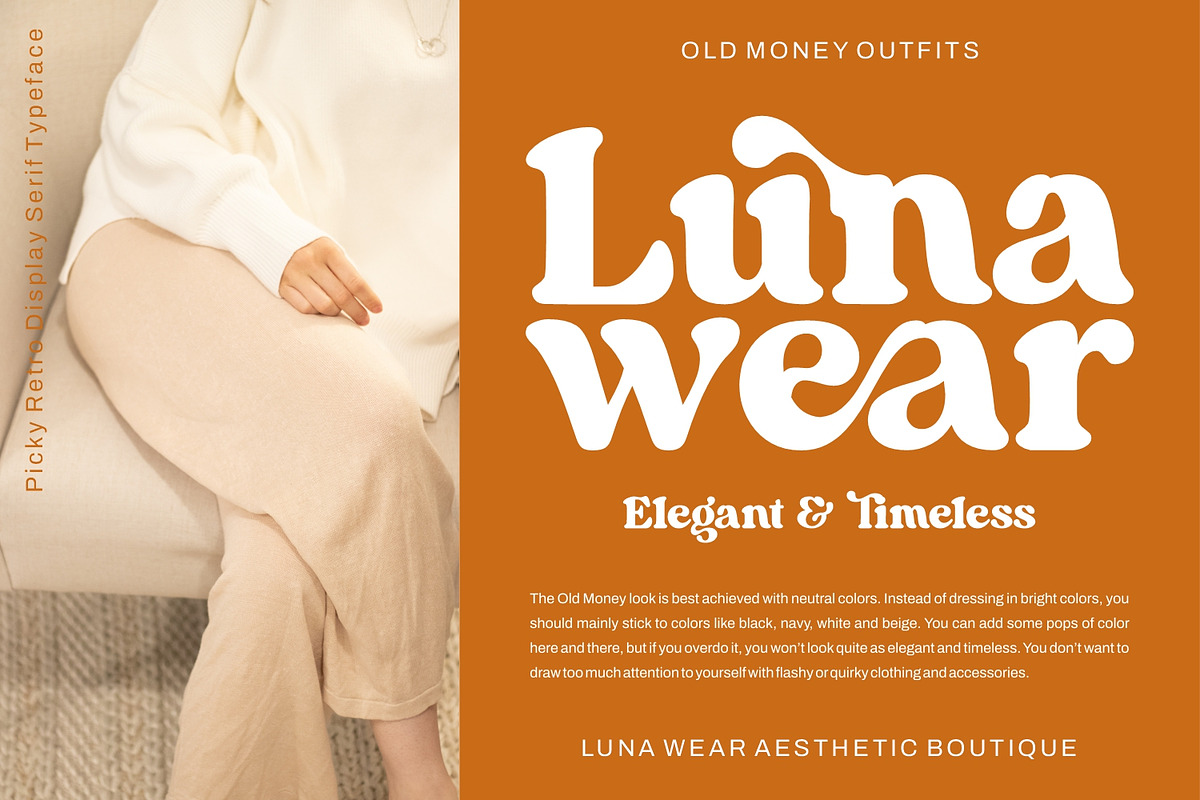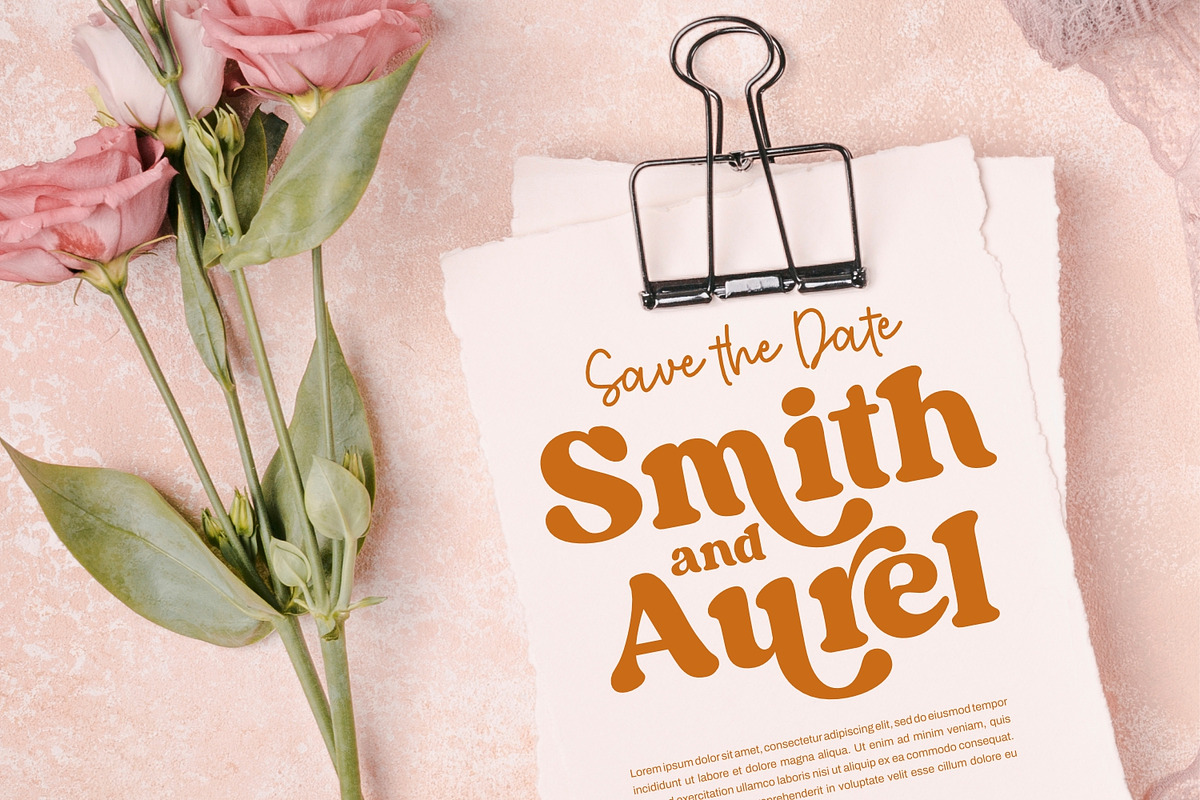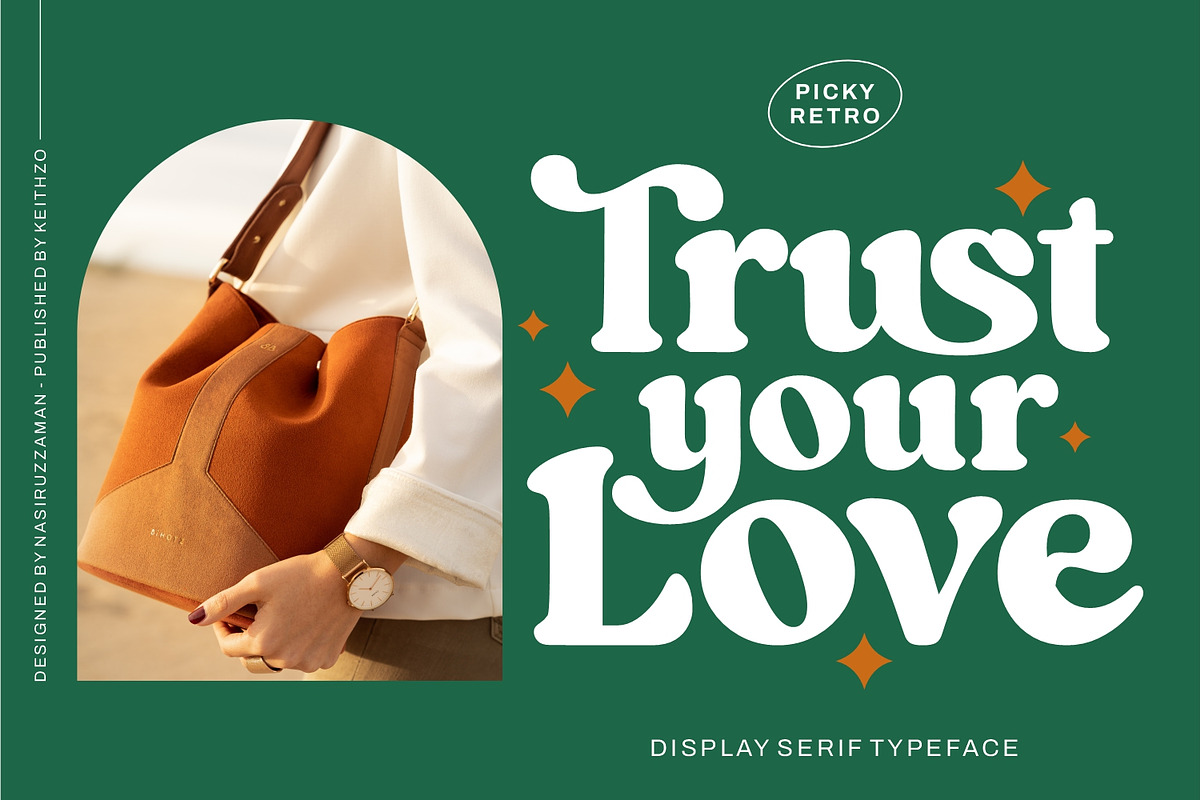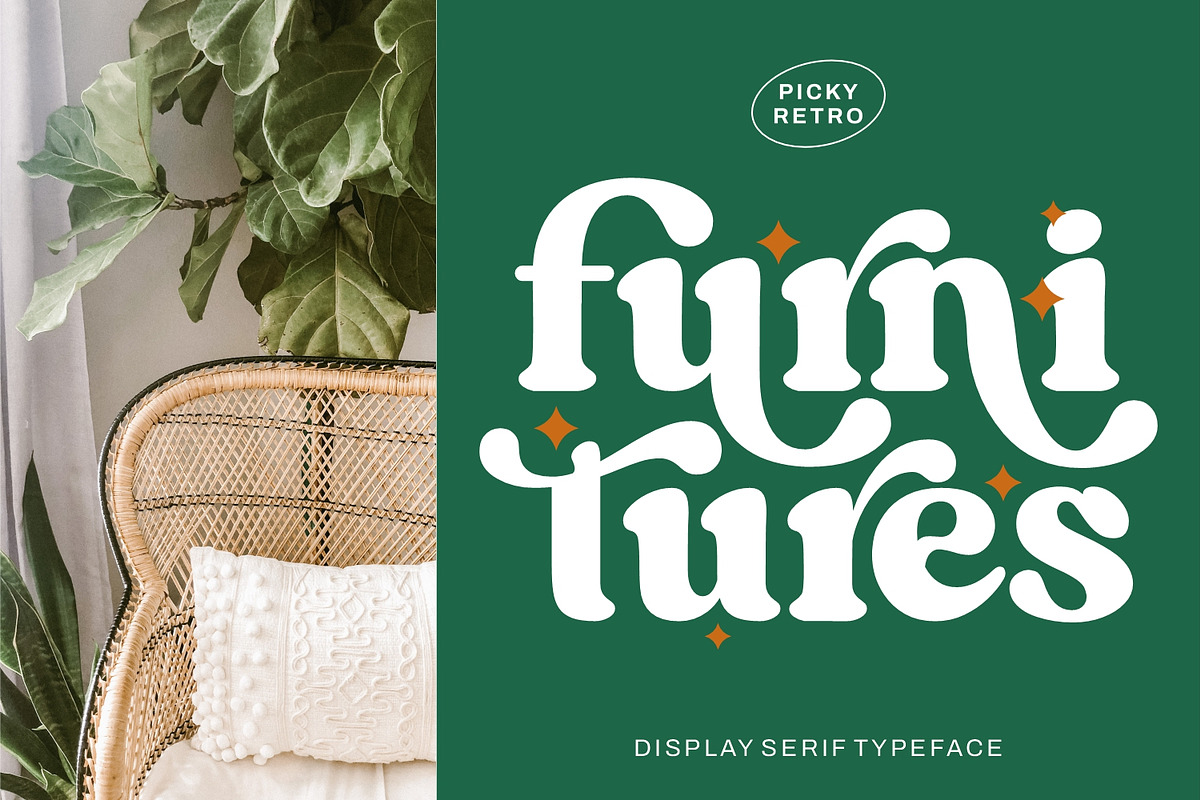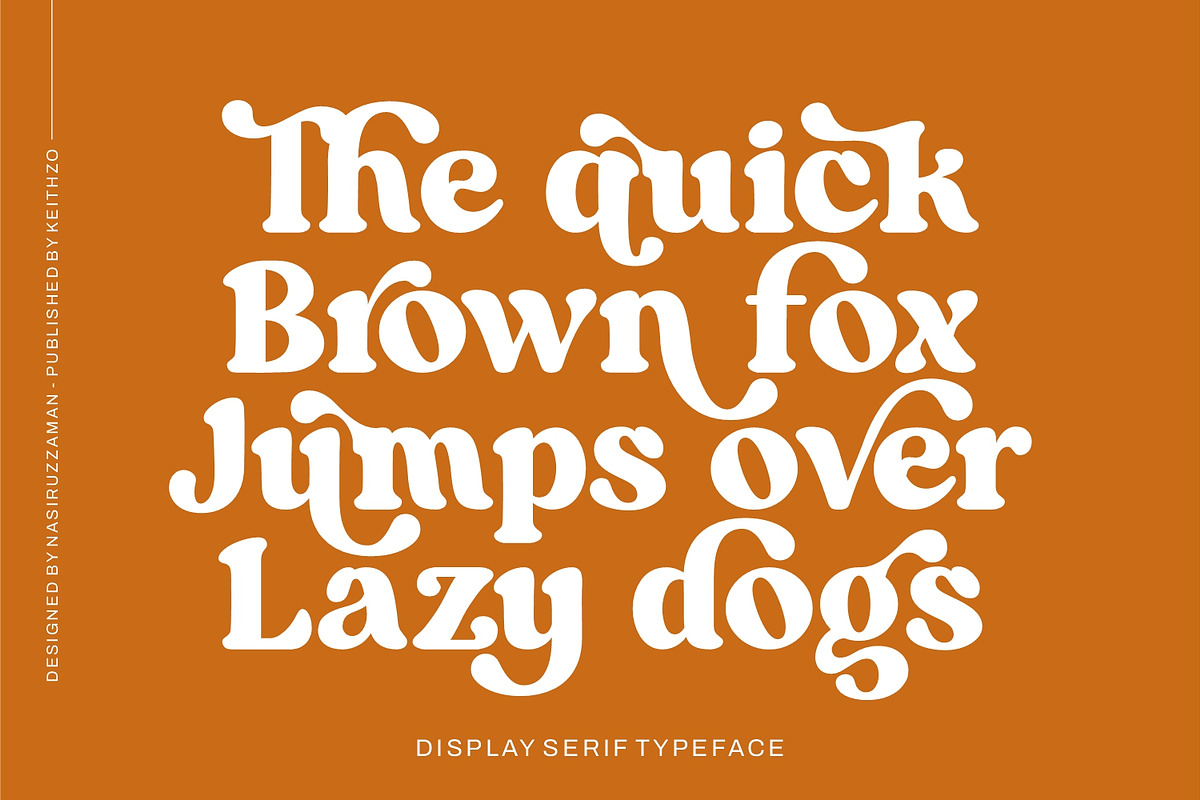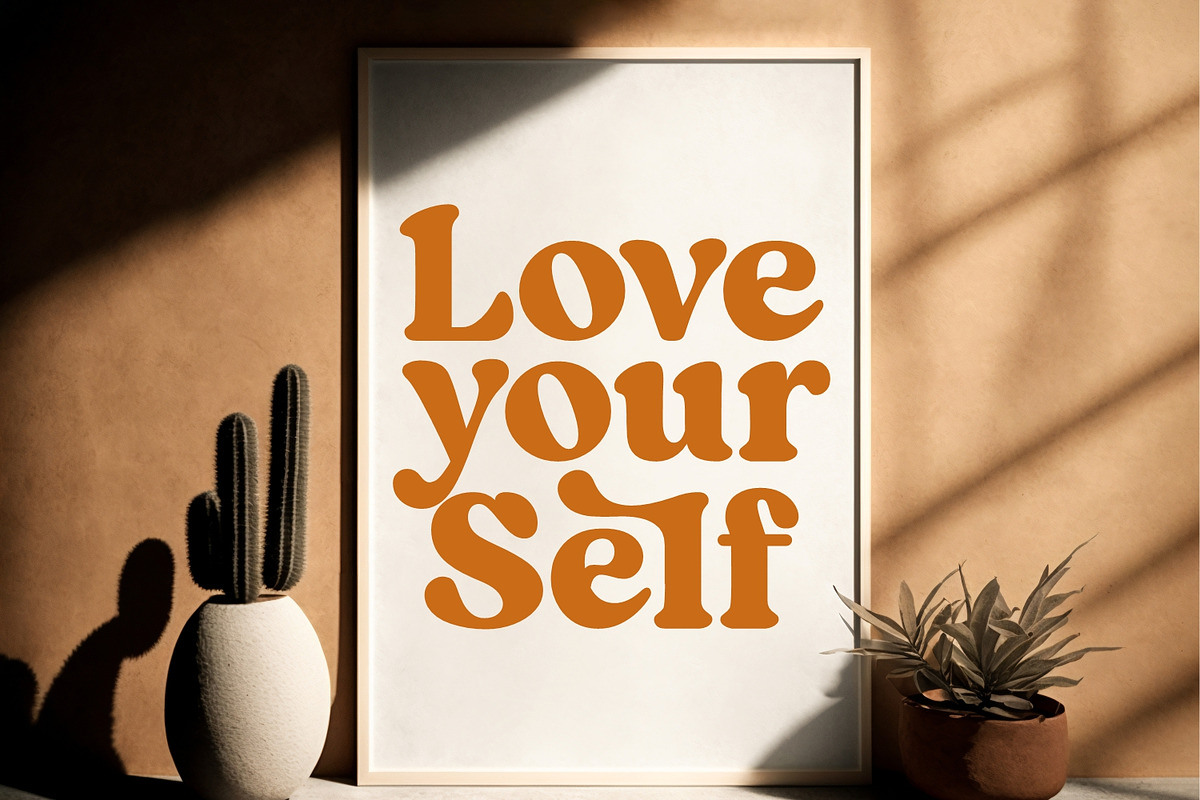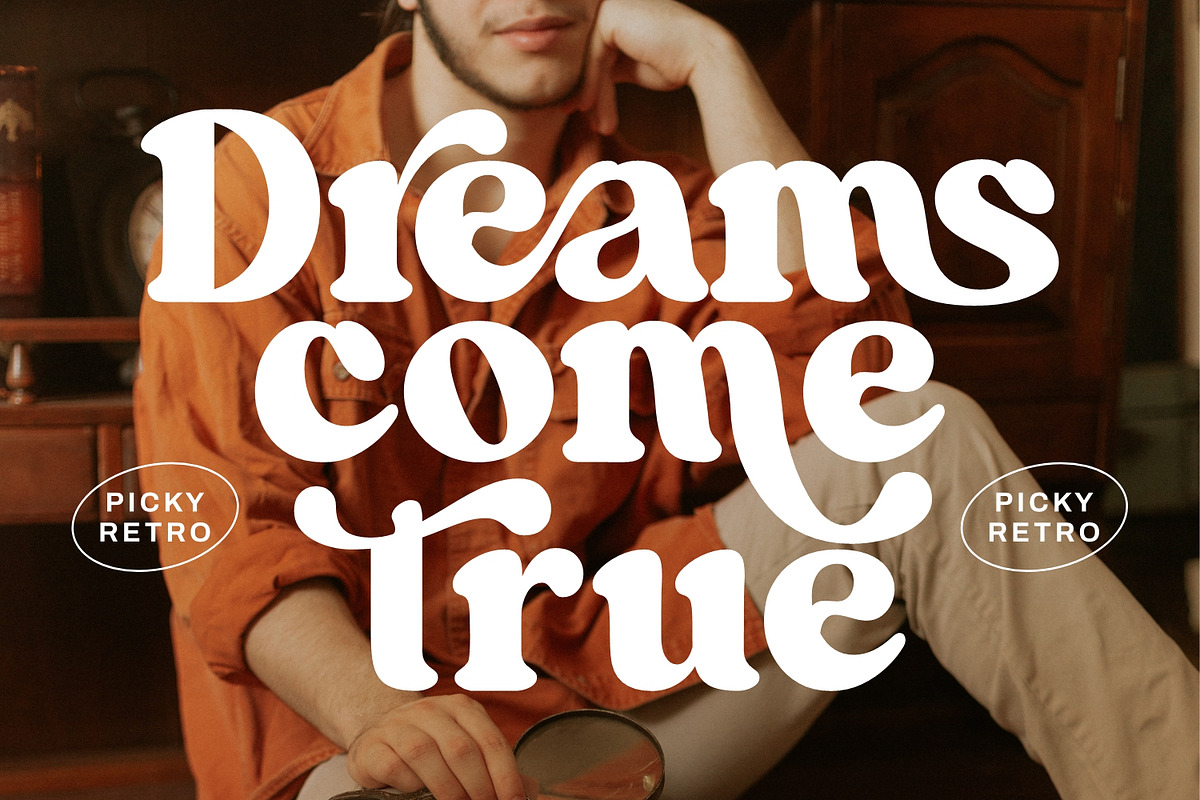
Picky Retro - Retro Font
Picky Retro font is a bold and charismatic display serif typeface that brings a touch of vintage flair to your designs. Its strong and distinctive letterforms evoke a sense of classic elegance while adding a hint of playful nostalgia. Whether you’re designing logos, headlines, or invitations, Picky Retro adds a timeless charm that’s sure to captivate and stand out.
Stylistic and Ligatures